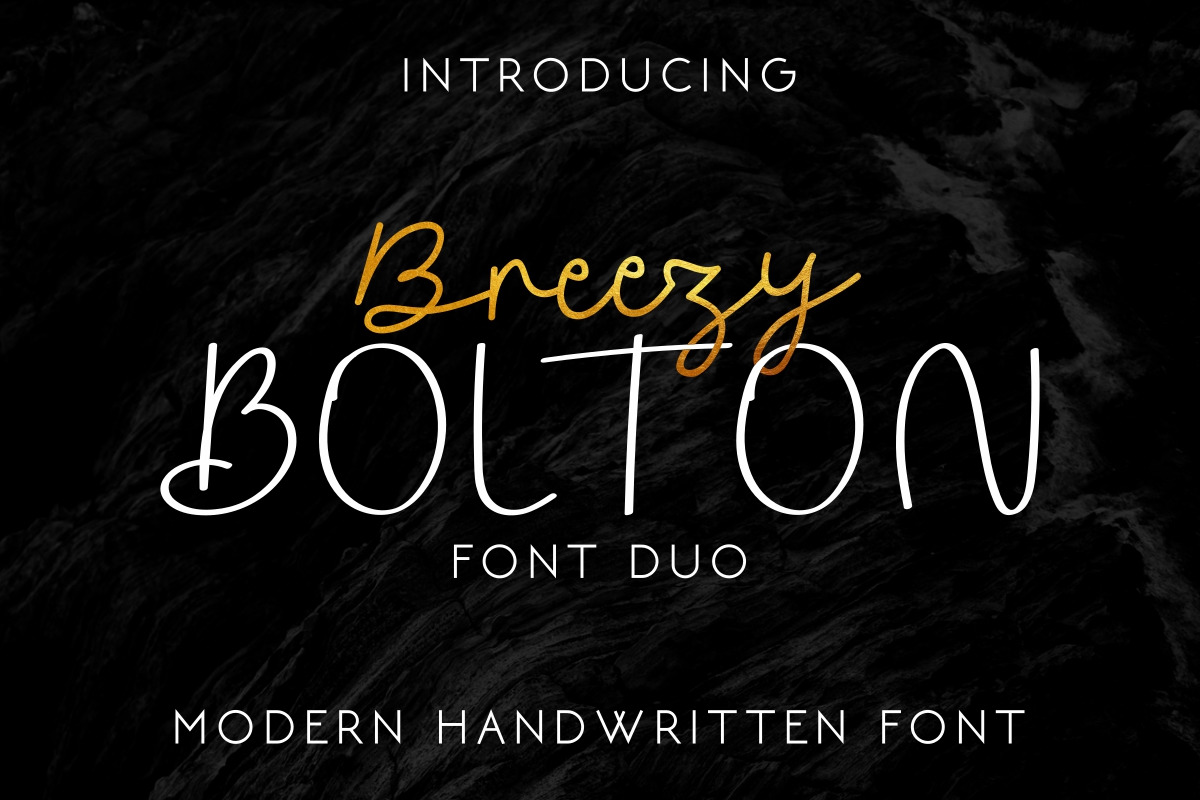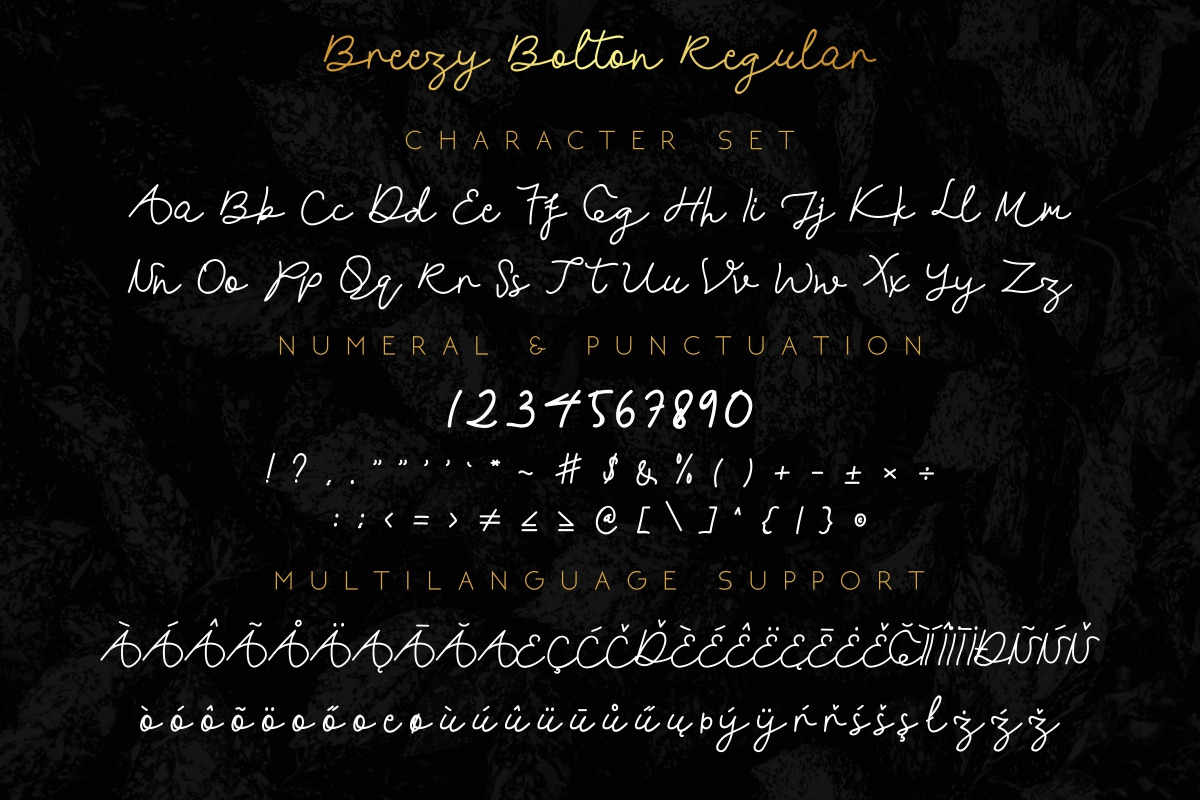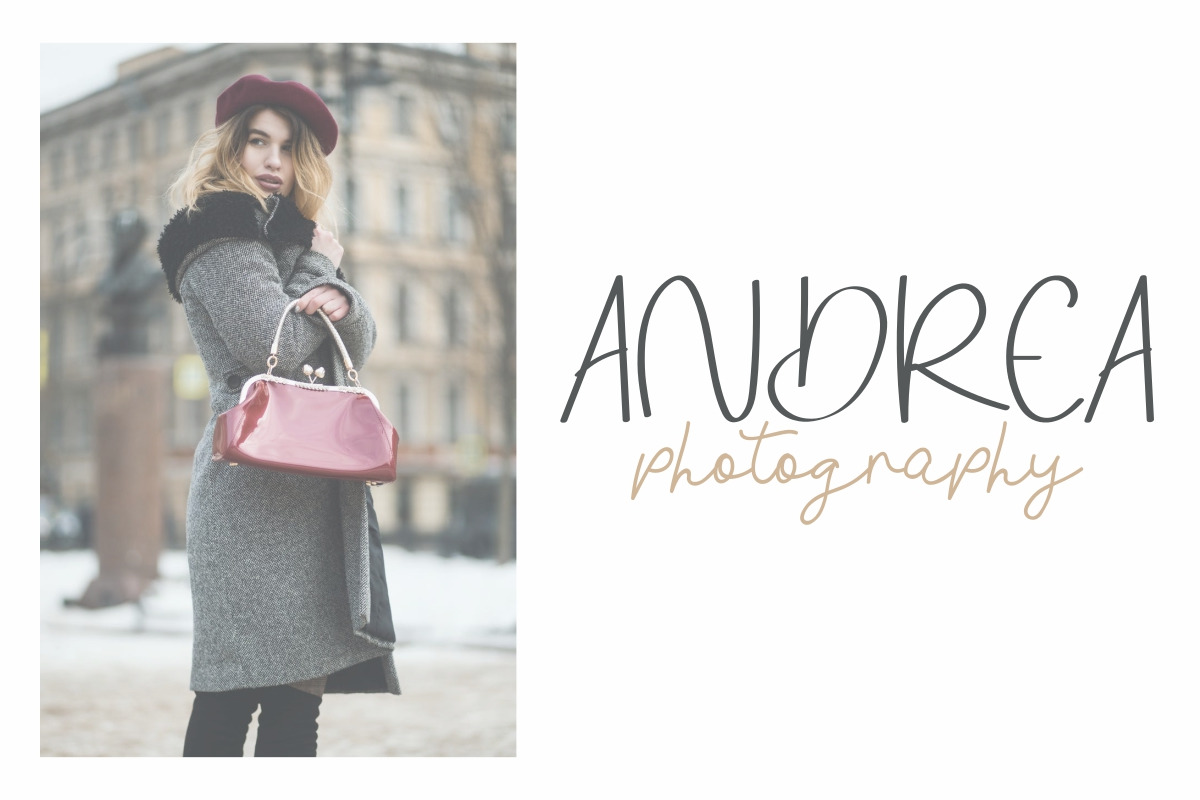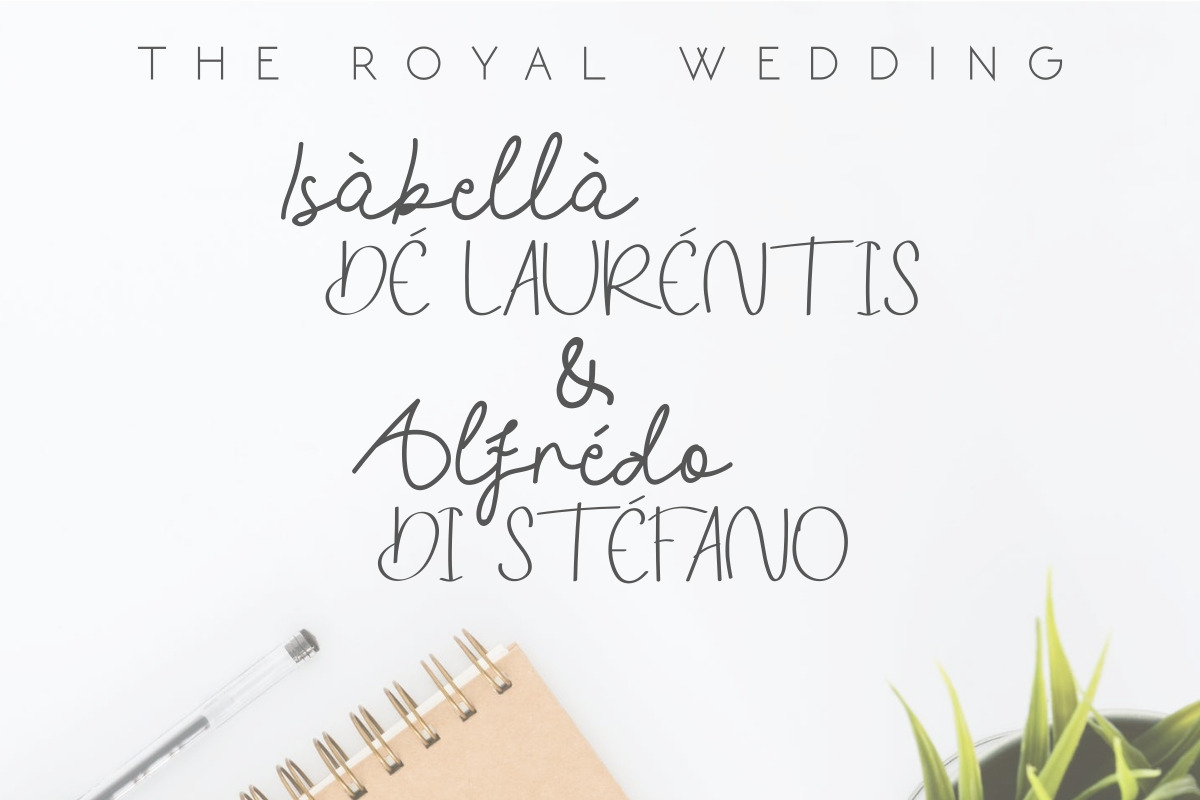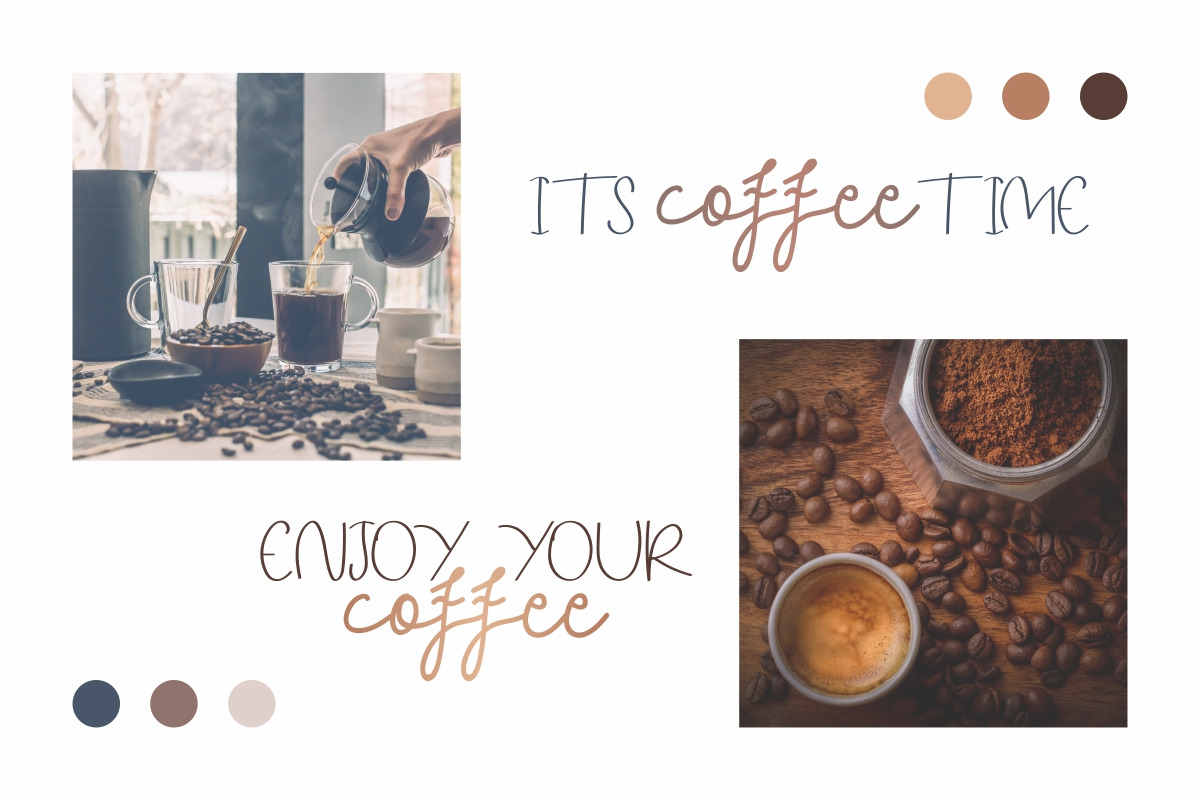
Breezy Bolton Font Duo
Hola, please welcome our new font : Breezy Bolton Font!
Breezy Bolton is a font duo consist of two different styles: Cursive Handwriting and sans display